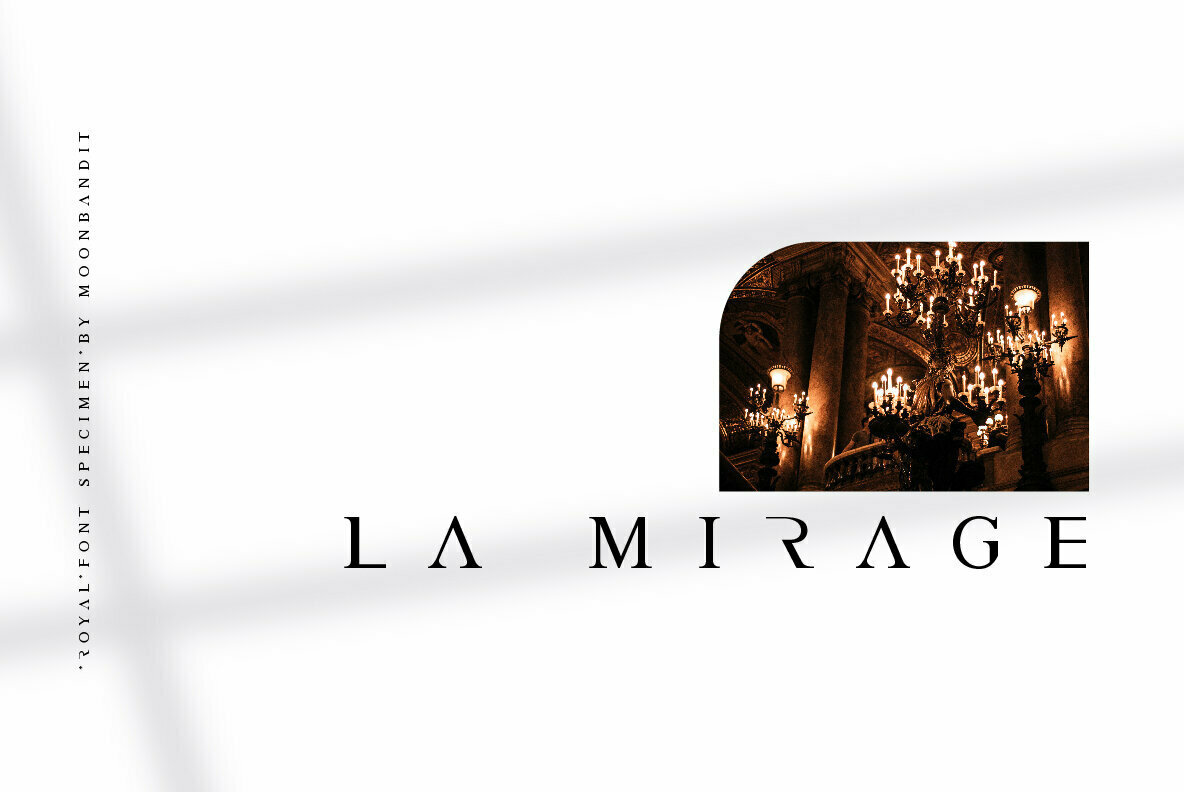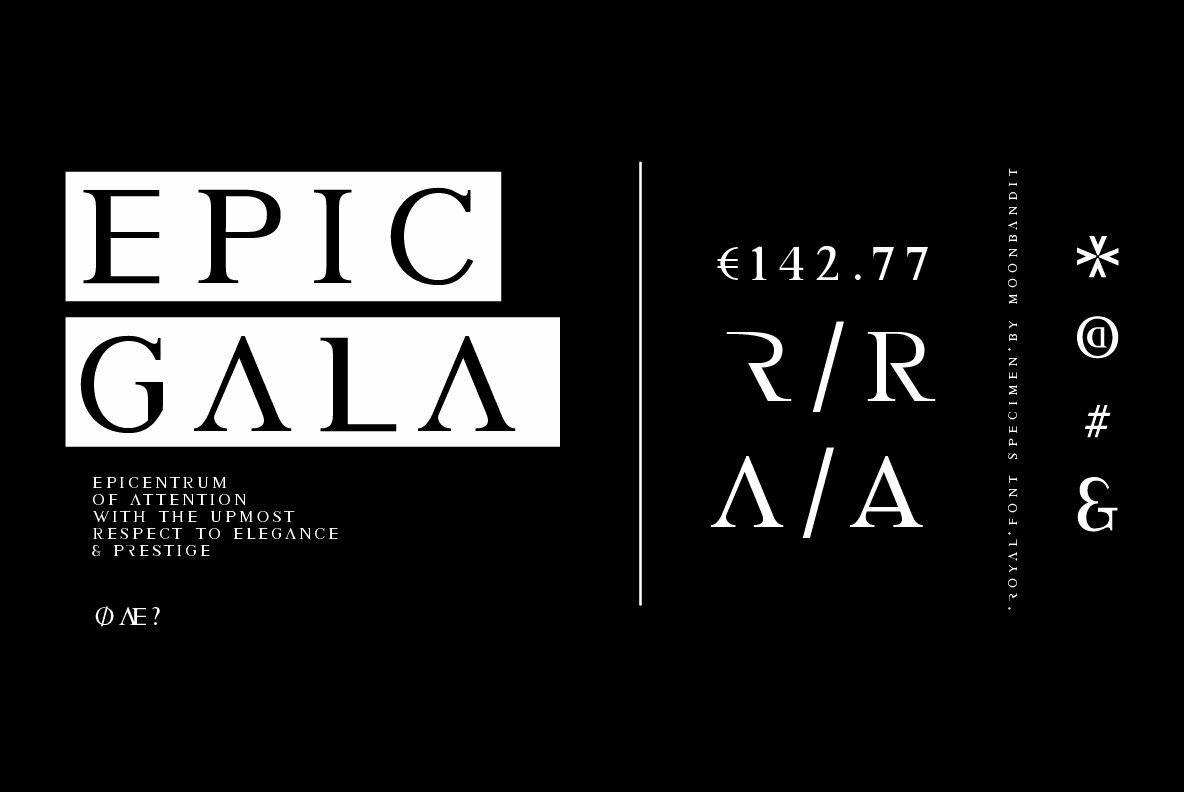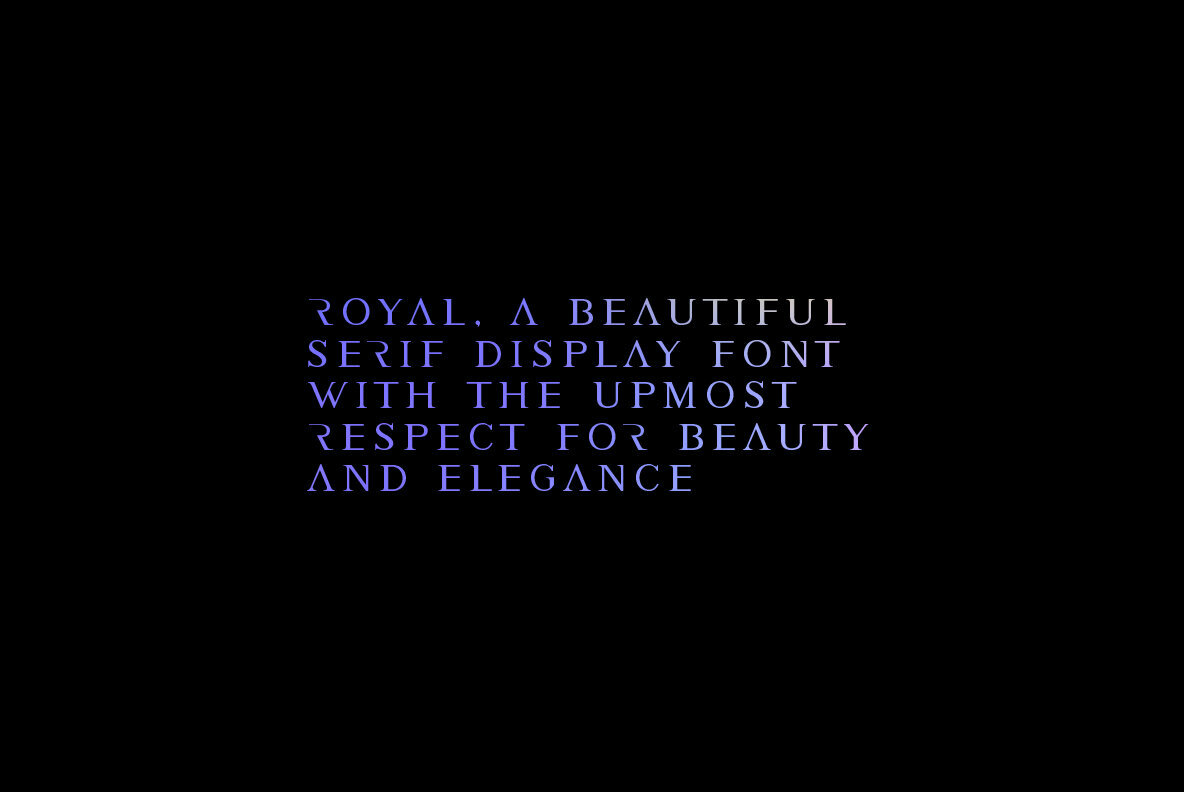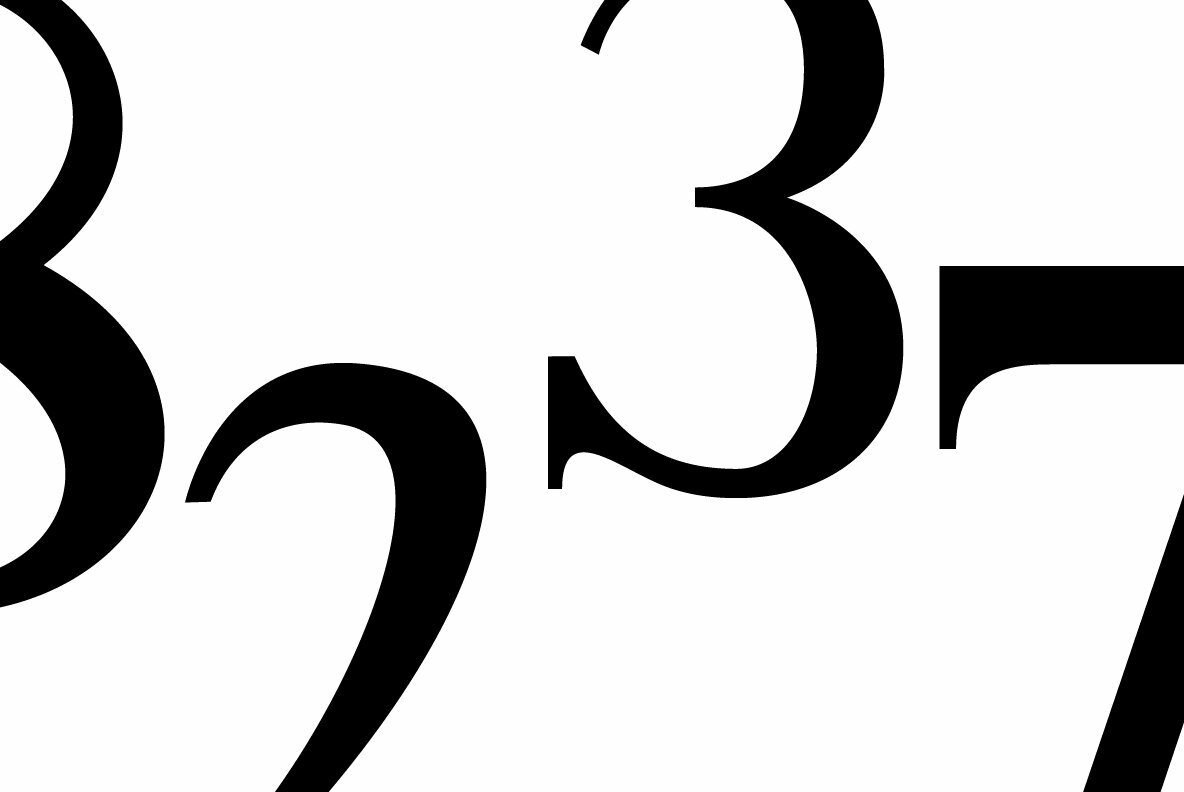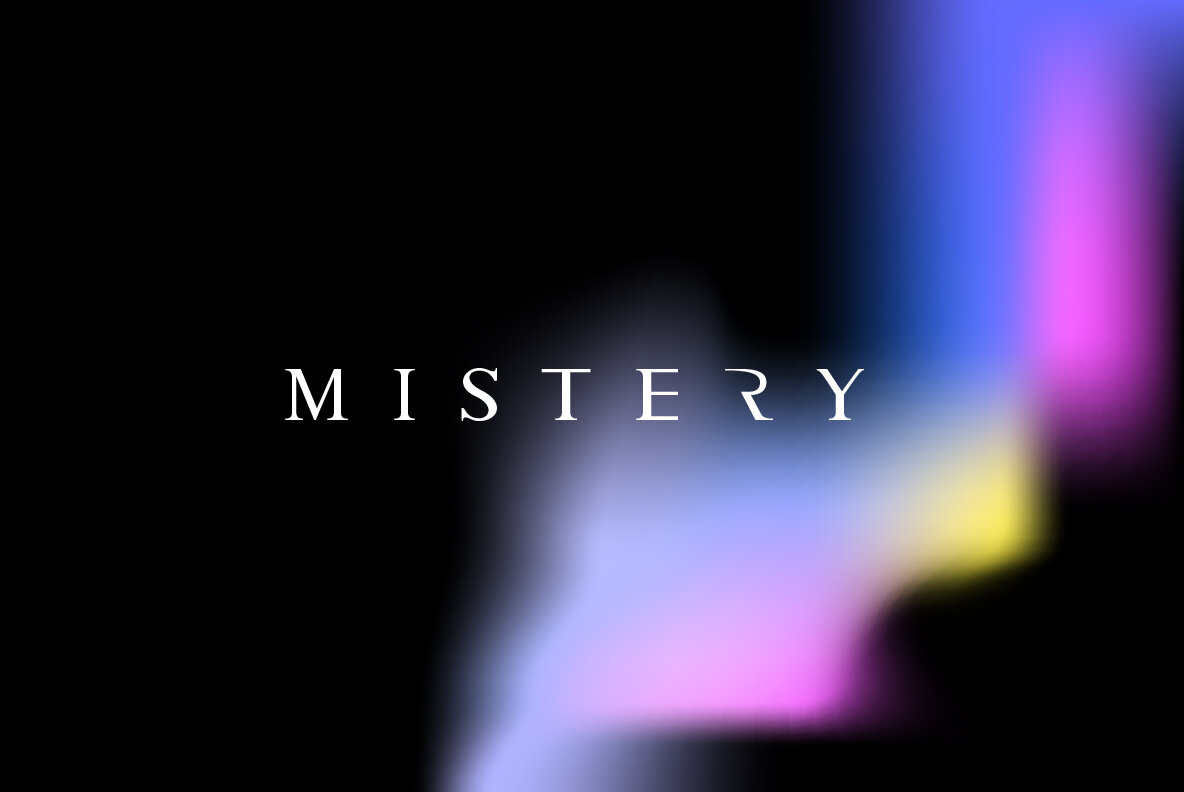
MBF Royal
MBF Royal is an exquisite serif font that infuses classic elegance with contemporary style. Its all-uppercase design stands as a statement in sophistication, making it ideal for projects ranging from titles and posters to invitations and headlines.MBF Royal: A Classy Serif with Modern Flair